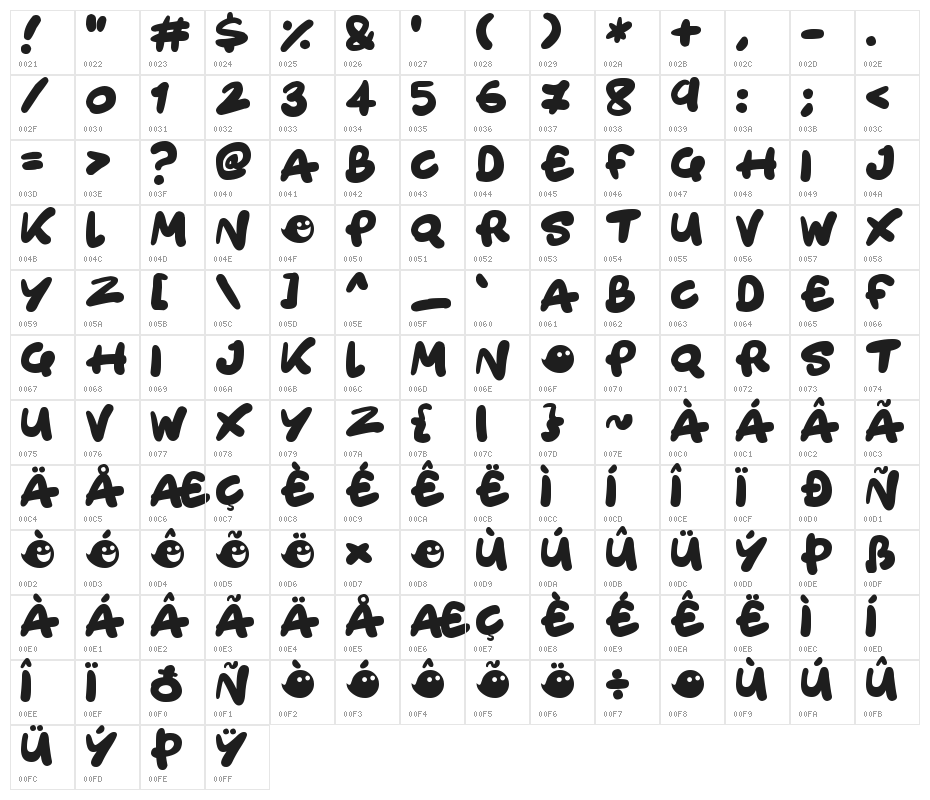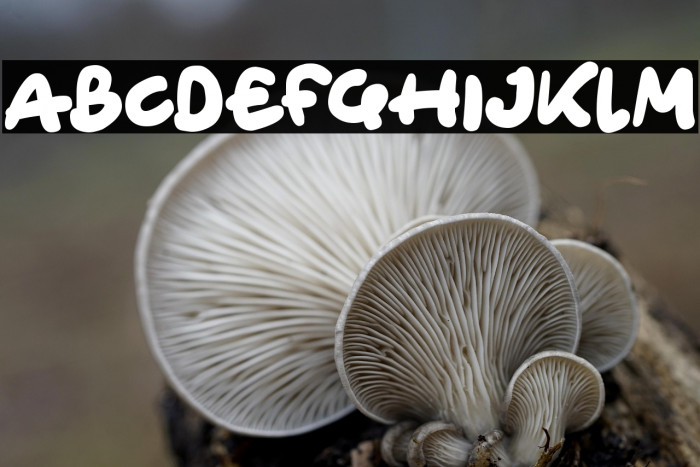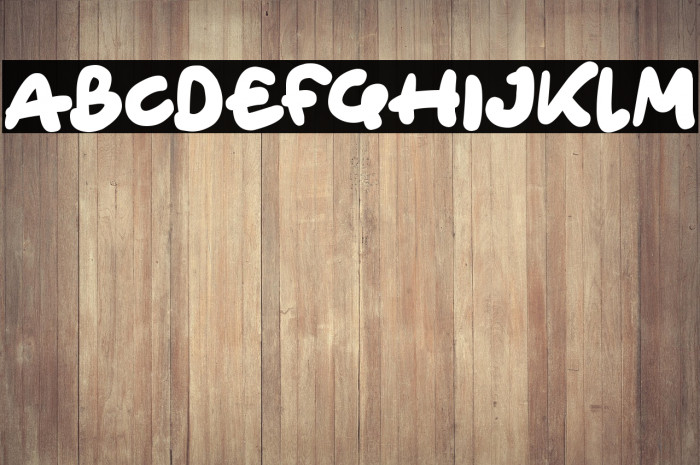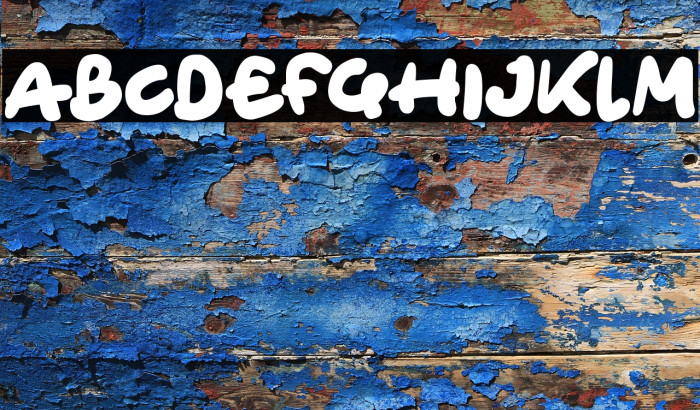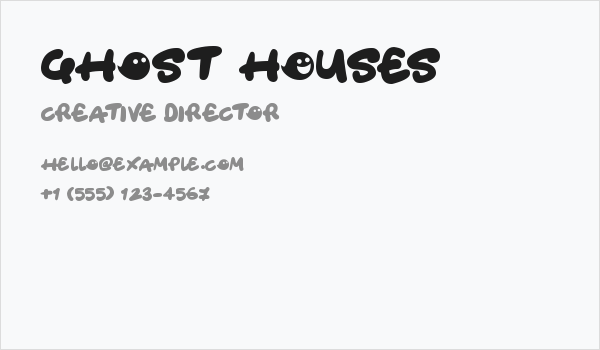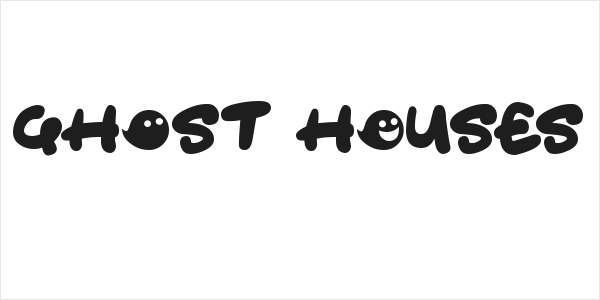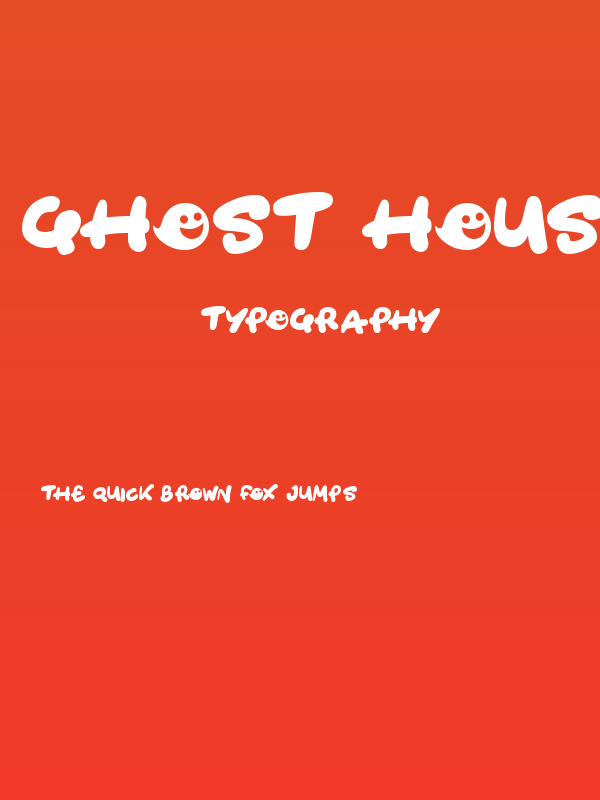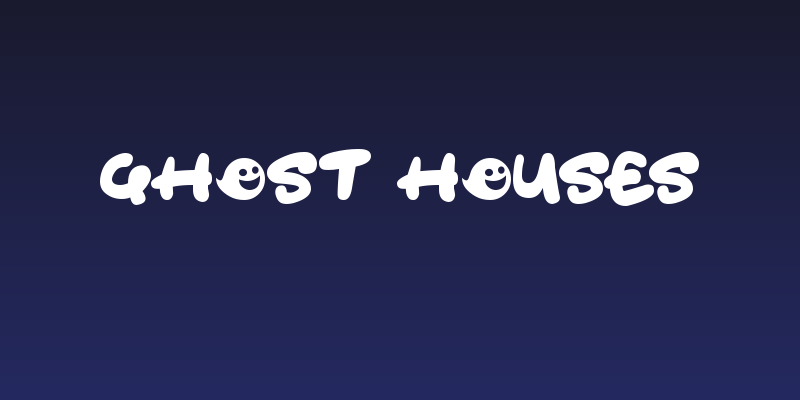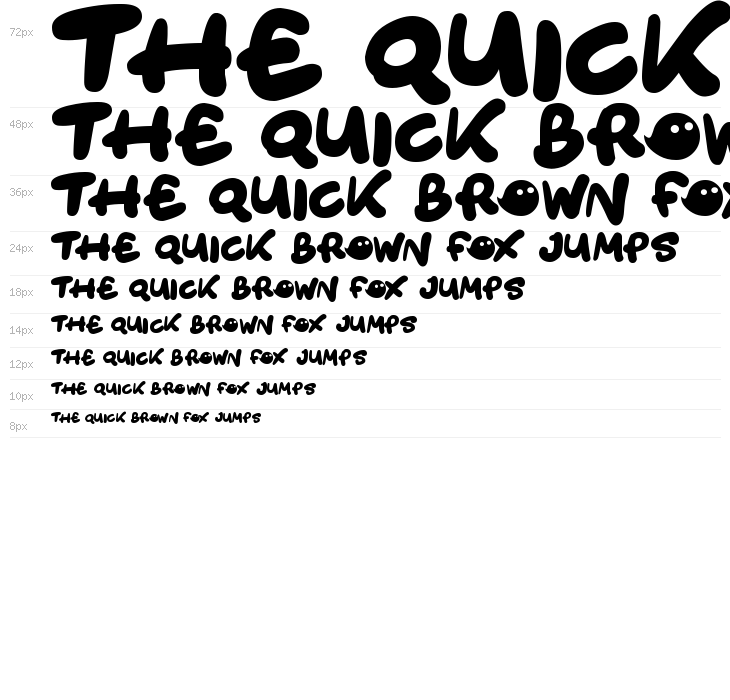
Ghost HOuses Font
Ghost HOuses Description
This playful and bold font features thick, rounded characters with a whimsical touch. The letters are designed with a cartoonish style, incorporating a sense of fun and creativity. The uppercase and lowercase letters maintain a consistent thickness, giving the font a cohesive look. The numbers and special characters follow the same playful design, making it suitable for projects that require a lighthearted and engaging appearance. The font's unique style is perfect for capturing attention and adding a touch of humor to any design.
| Overall Style | Playful, Cartoonish |
| Proposed Projects | Ideal for children's books, comic strips, playful branding, and Halloween-themed designs. |